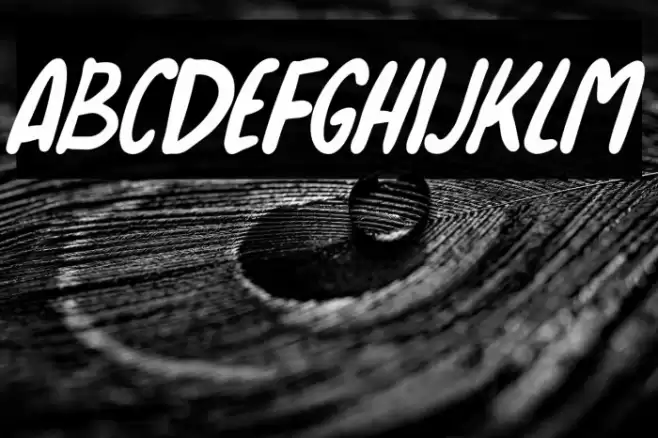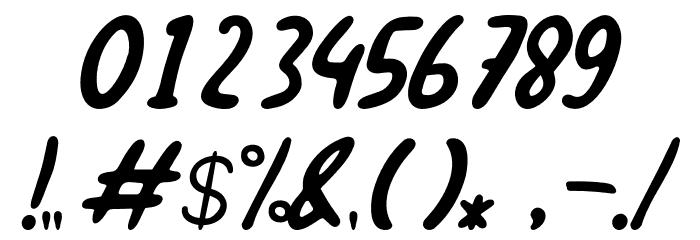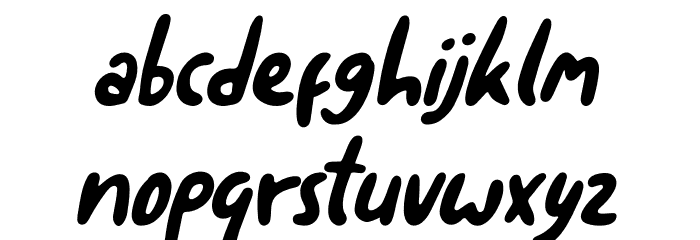
Sortelo Italic Italic Font
Sortelo Italic Italic Description
This font features a bold, handwritten style with a playful and energetic feel. The characters are slightly slanted, giving it an italic appearance that adds a sense of motion and dynamism. The strokes are thick and rounded, providing a friendly and approachable look. The uppercase and lowercase letters maintain a consistent style, with smooth curves and a casual flair. Numbers and special characters are designed to match the overall aesthetic, ensuring a cohesive appearance across all text elements. This font is ideal for projects that require a personal touch or a lively, informal vibe.
A bold, handwritten italic font with a playful and dynamic style from Uncategorized fonts.
- Proposed Projects: Ideal for greeting cards, playful branding, children's books, and social media graphics.
- Overall Style: Playful
- Use Case: Logos, Headlines, Informal Text